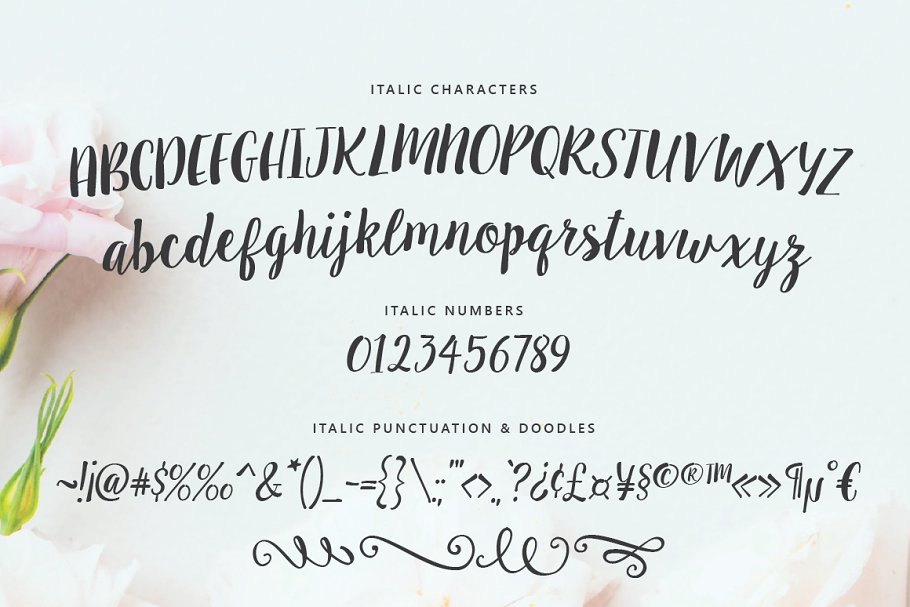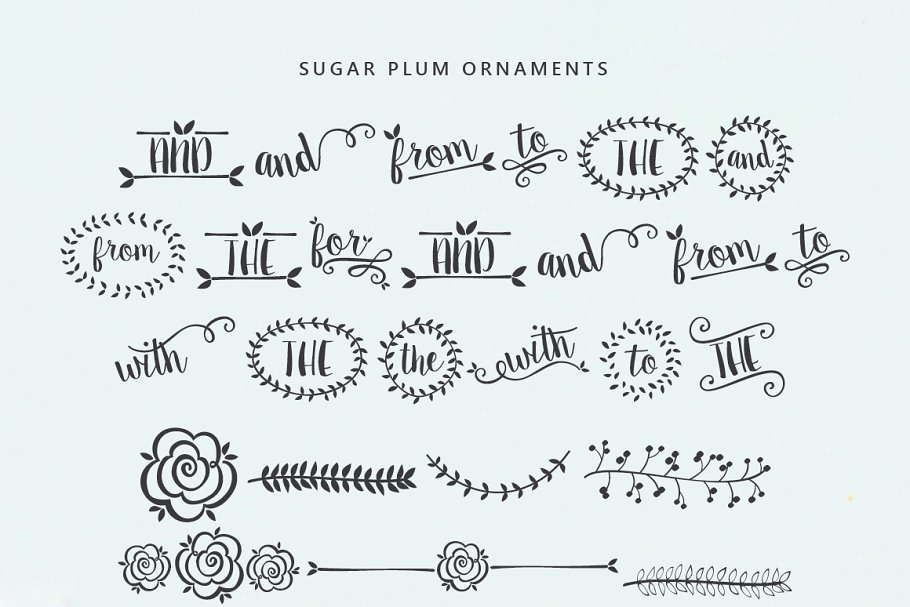
About the Sugar Plums Script Font
Sugar Plums is a new hand made font for 2015, Available for both personal and commercial use, Download and use Sugar Plums Script for anything and everything, Including over 400 different hand drawn characters for a range of languages and dialects, As well as an Italic version and over 60 hand drawn ornaments, including leaves & flowers, catchwords, frames, doodles and swirls
NEW! More International Glyphs and Special Punctuation (Latin-1 Supplement) ÀÁÂÃÄÅÆÇÈÉÊËÌÍÎÏÝ ÑÒÓÔÕÖØŒÙÚÛÜ àáâãäåæçèéêëìíîïñòóôõöðøœùúûüýÿ(Latin Extended-A) ĀāĂ㥹ĆćĈĉĊċČčĎďĐĒēĔĕĖėĘęĚěĜĝĞğĠġ ĤĥĨĩĪīĬĭĮįİıĹ弾ĿŀŃńŇňʼnŌōŎŏŐŐőŒœŔŕŘř ŚśŜŝŠšŤťŨũŪūŬŭŮůŰűŲųŴŵŶŷŸŹźŻżŽžDownload within a few clicks and use across a huge range of programs including Photoshop, InDesign, Illustrator and Microsoft Word as well as many moreNot sure how to install a font? No problem